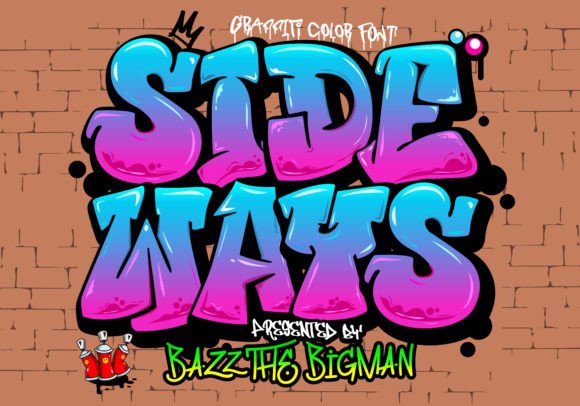
Introducing Sideways Font: The Ultimate Graffiti-Styled Display Font
Are you looking for a font that can add an urban, street art vibe to your designs? Look no further than Sideways Font, an awesome graffiti-styled display color font that’s perfect for a variety of design projects. In this article, we’ll take a closer look at Sideways Font, its features, and how you can use it to take your designs to the next level.
What is Sideways Font?
Sideways Font is a graffiti-styled display color font that’s designed to give your designs an urban, street art feel. This font is perfect for designers who want to create bold, eye-catching designs that stand out from the crowd. With its unique and stylish lettering, Sideways Font is sure to add a touch of edginess to any design project.
Key Features of Sideways Font
- Graffiti-styled design: Sideways Font features a unique graffiti-styled design that’s perfect for creating urban, street art-inspired designs.
- Color font: Sideways Font is a color font (Opentype-SVG), which means it can be used in designs that require multiple colors.
- Urban, street art vibe: This font is designed to give your designs an urban, street art feel that’s perfect for designs such as t-shirts, sportswear, logos, and more.
How to Use Sideways Font
Sideways Font is a versatile font that can be used in a variety of design projects. Here are some examples of how you can use this font:
- T-shirts and apparel: Use Sideways Font to create bold, eye-catching designs for t-shirts, hoodies, and other apparel.
- Sportswear: Add a touch of urban style to your sportswear designs with Sideways Font.
- Logos and branding: Use Sideways Font to create unique and memorable logos and branding materials.
- Advertisements: Add some edge to your advertisements with Sideways Font.
- Clothing and fashion: Use Sideways Font to create stylish and eye-catching designs for clothing and fashion brands.
Tips and Tricks for Using Sideways Font
Here are some tips and tricks to help you get the most out of Sideways Font:
- Experiment with colors: Take advantage of the color font feature and experiment with different colors to create unique and eye-catching designs.
- Use it sparingly: Sideways Font is a bold and attention-grabbing font, so use it sparingly to avoid overwhelming your designs.
- Pair it with other fonts: Experiment with pairing Sideways Font with other fonts to create interesting and dynamic designs.